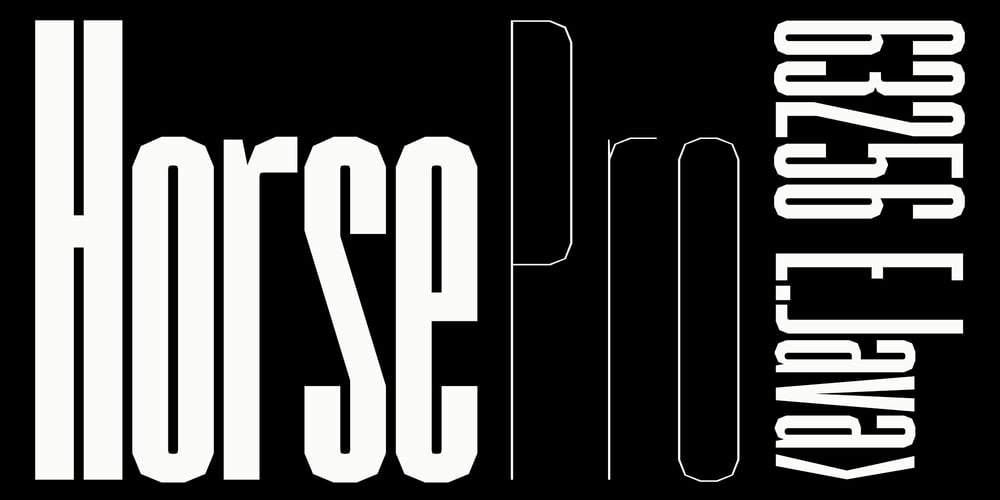
Horse Pro Font Family was designed by Atok Khoirudin and published by Studio Fat Cat. Horse Pro contains 14 styles and family package options. Horse Pro is another popular sans-serif typeface. Horse Pro was designed by Atok Khoirudin and released through the Studio Fat Cat Type foundry. It is characterized by its bold and uppercase letters, giving it a strong and impactful appearance. Horse Pro is perfectly used in various design contexts, such as headlines, posters, logos, and banners, where a bold and modern look is desired.The font family includes different weights and styles, allowing for flexibility in design projects and have become go-to choices for many designers looking for a bold and stylish sans-serif font for their projects.